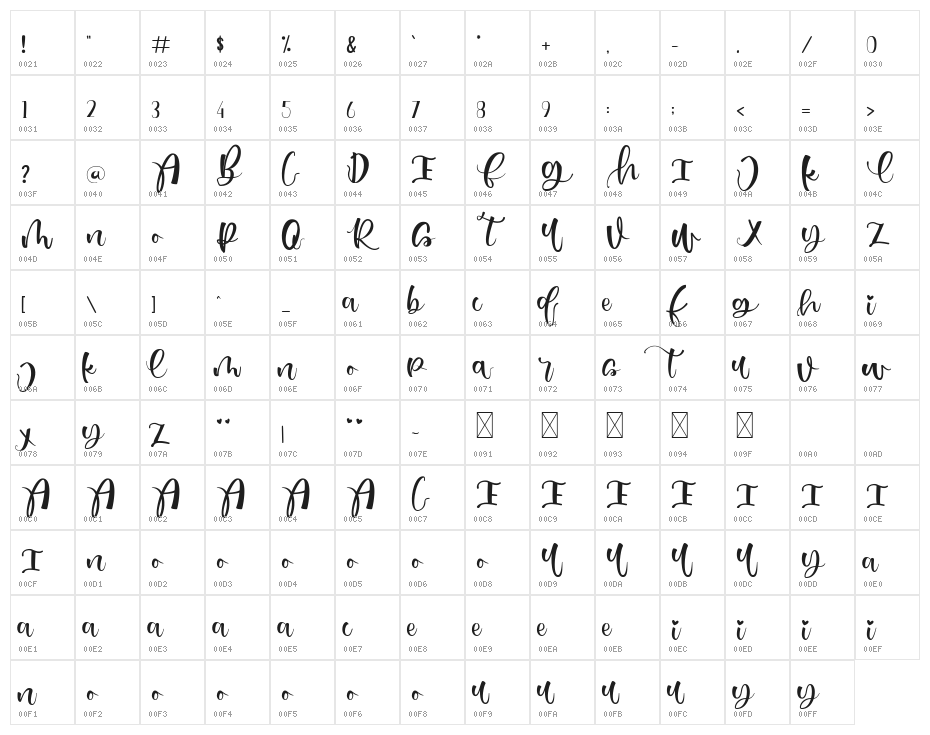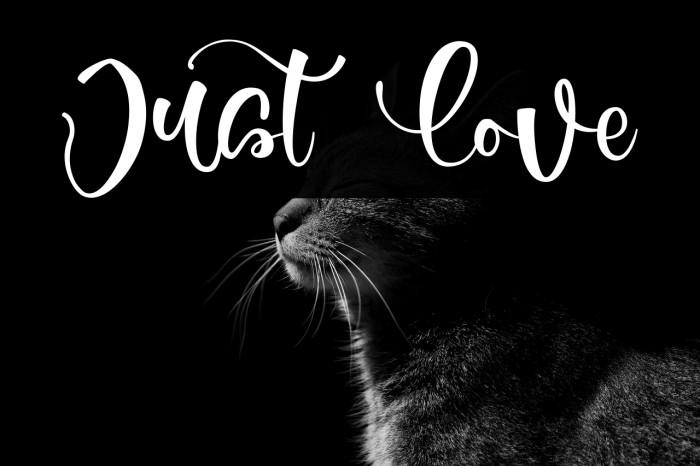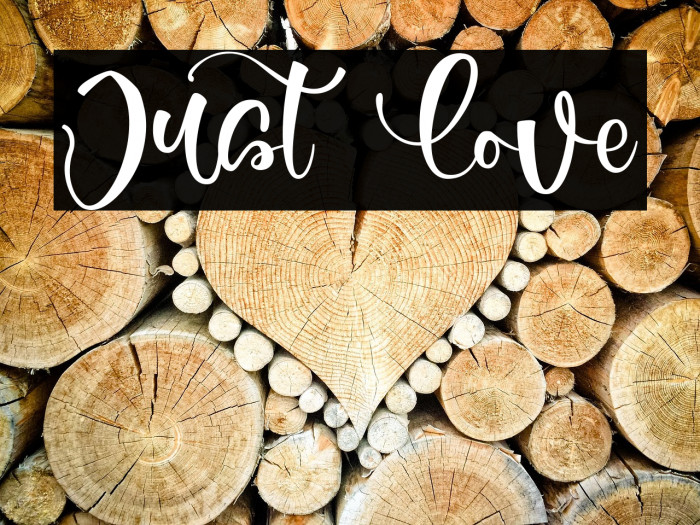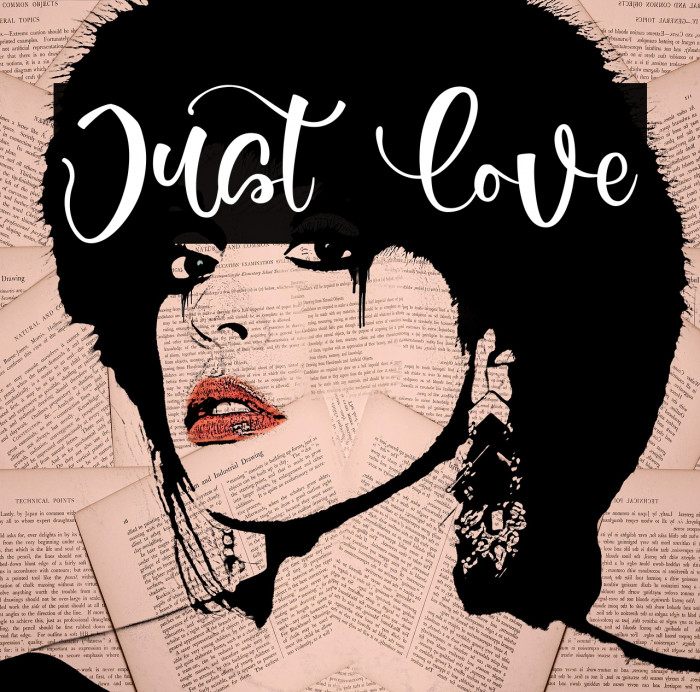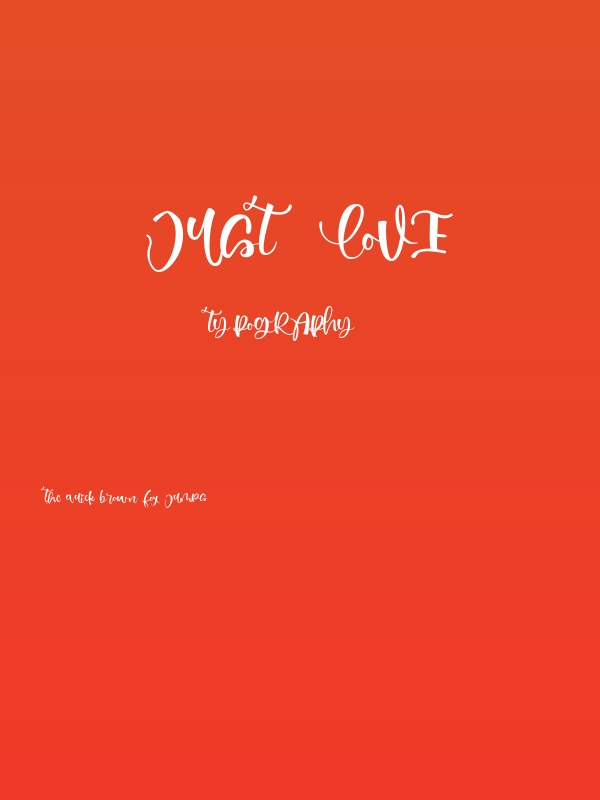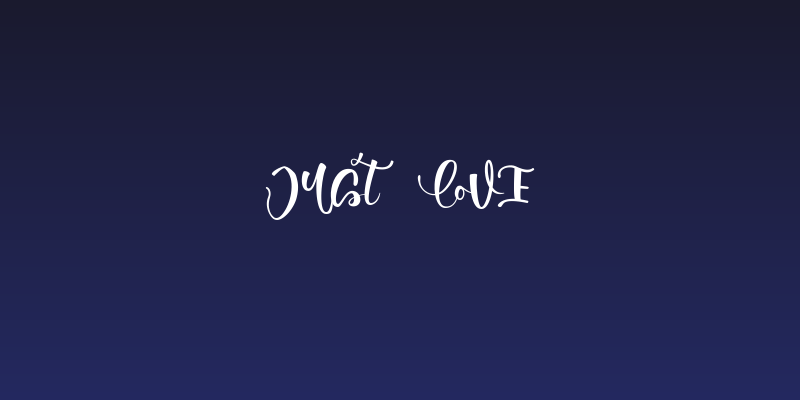
Just Love Font
Just Love Description
This font features a playful and whimsical script style with a handwritten appearance. The letters are characterized by their flowing, interconnected strokes, giving it an elegant yet casual feel. The uppercase letters are bold and expressive, while the lowercase letters maintain a consistent fluidity. The numerals are more structured, providing a nice contrast to the letters. Special characters are included, maintaining the same playful style. This font is ideal for projects that require a personal touch, such as invitations, greeting cards, or branding materials.
| Proposed Projects | Ideal for wedding invitations, greeting cards, personal branding, and decorative projects. |